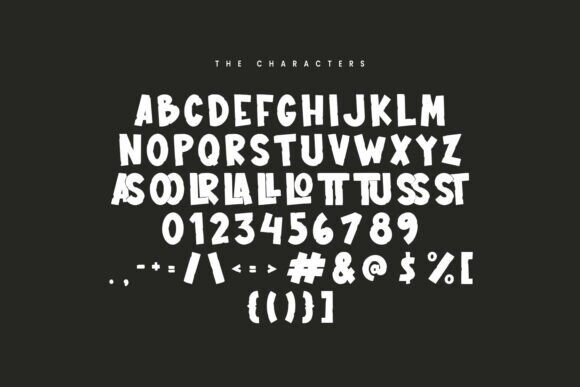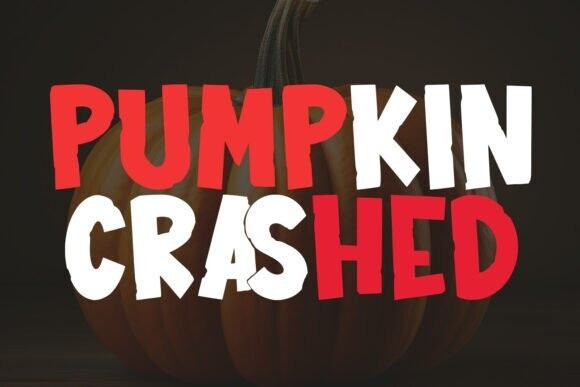
Kolkme Alltoss Font
Designer: Maulana Creative
Kolkme Alltoss Font is an incredibly cool and unique display font. It has a modern yet whimsical style and it will undoubtedly immerse your designs into a magical world.